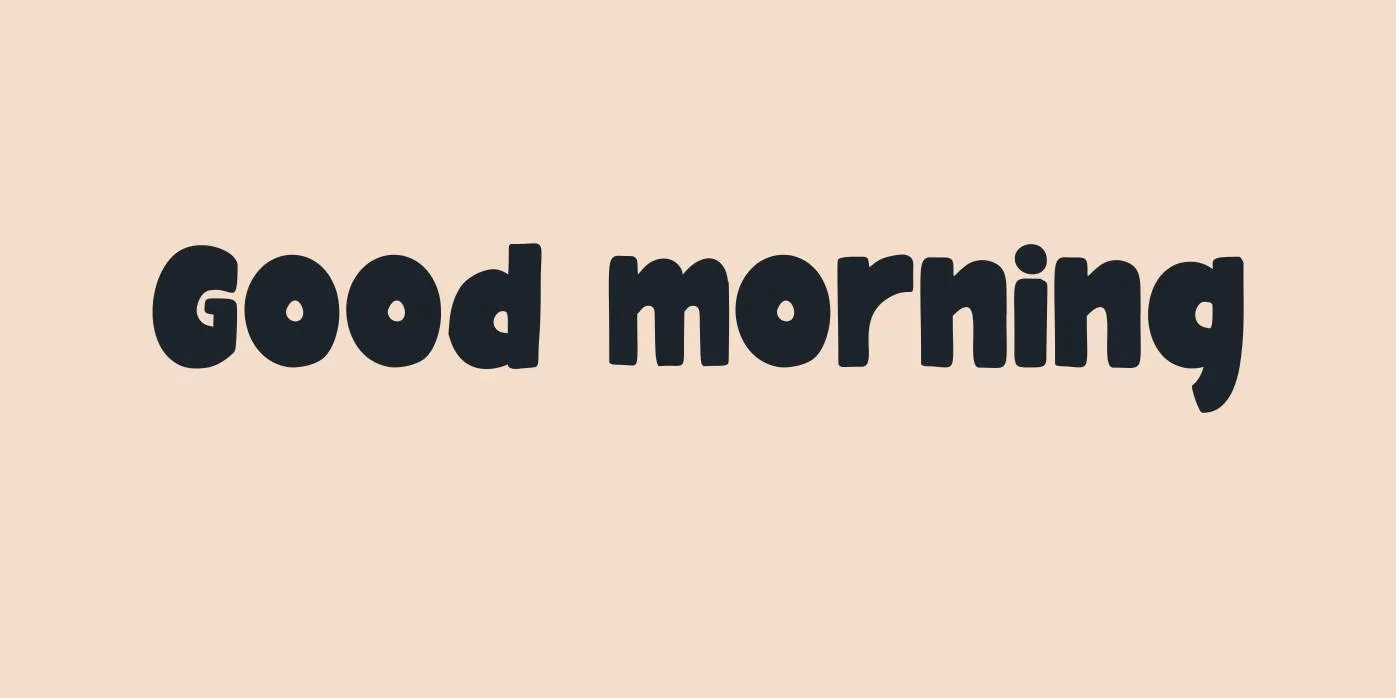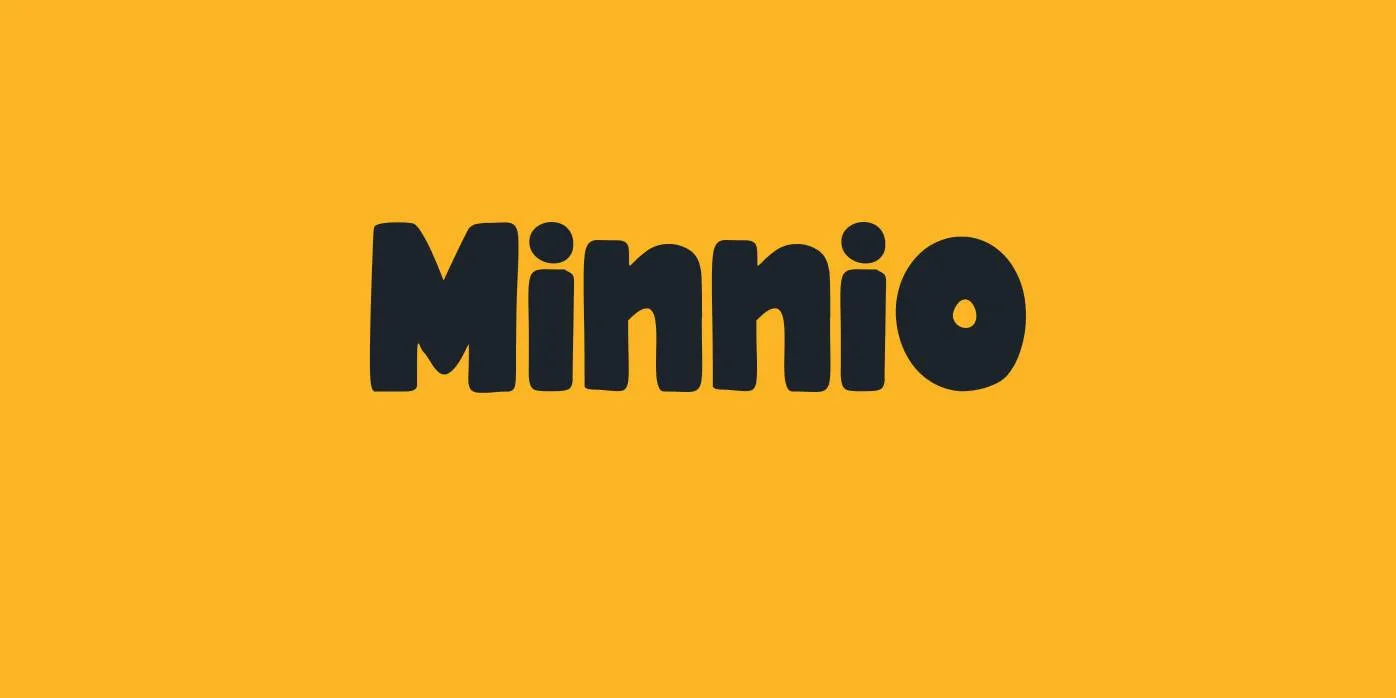
Minnio Font
Today, we will talk about a very amazing fancy typeface Minnio Font. This font is designed by Kong Font. It contains 115 characters,108 glyphs, and 1000 units per Em. The weight of the font is extra bold and its width is medium(normal).
It has many different weights and styles which can be used to design different projects. Unicode supported 2.0 and BMP only. Unicode blocks supported Basic-Latin and Lattin -1 supplement. An online generator tool also supports this font which you can convert your simple text into a stylish look without downloading the font.
It is a very nice and amazing font and you want to use it again and again. Usage This font has many features like small letters, capital letters, numbers, characters, symbols, special characters, and punctuation. So many different projects can be made by using this stunning font. You can make attractive logos for cartoon movies and other brands.
To make strong headings and titles of different brands it can also be used. For branding and product packing purposes, you can also use it. To make eye-catching banners, posters, flyers, and brochures it is a suitable choice. It is considered a good font for both print and digital media.
You can make so many different projects using this font. Is there any similar font to the Minnio font on Adobe? Yes, there are many similar fonts available to pair with this stunning font like Temina Font, Grade Gothic Font, Acumin Font, and much more. Is Minnio Font Free for commercial use?